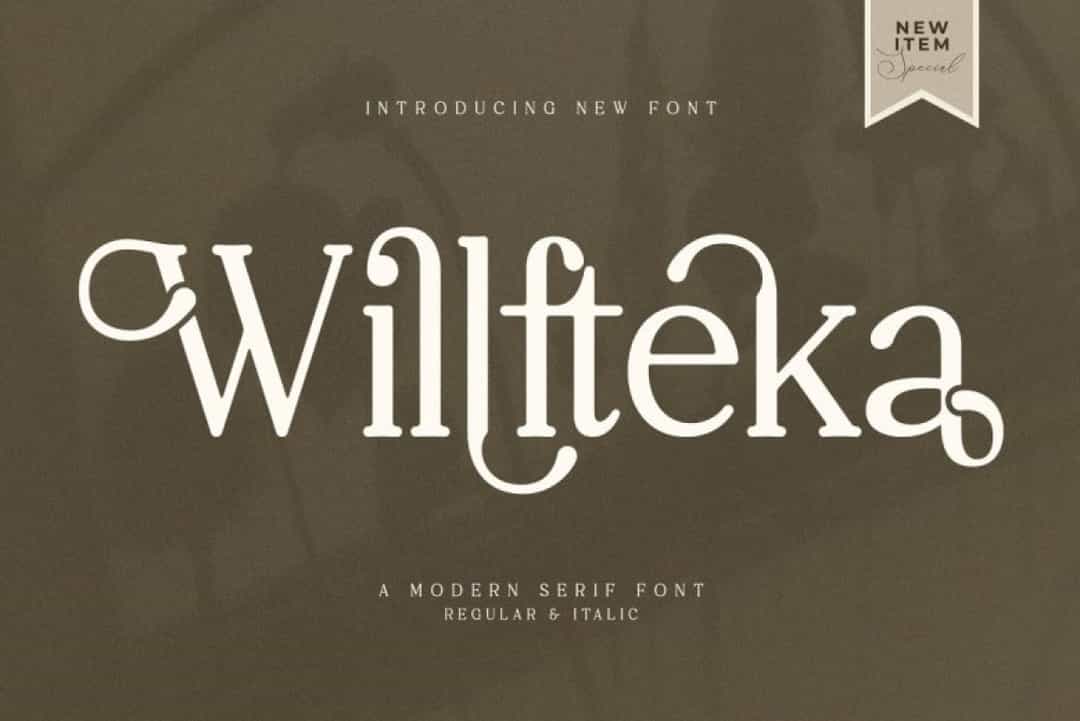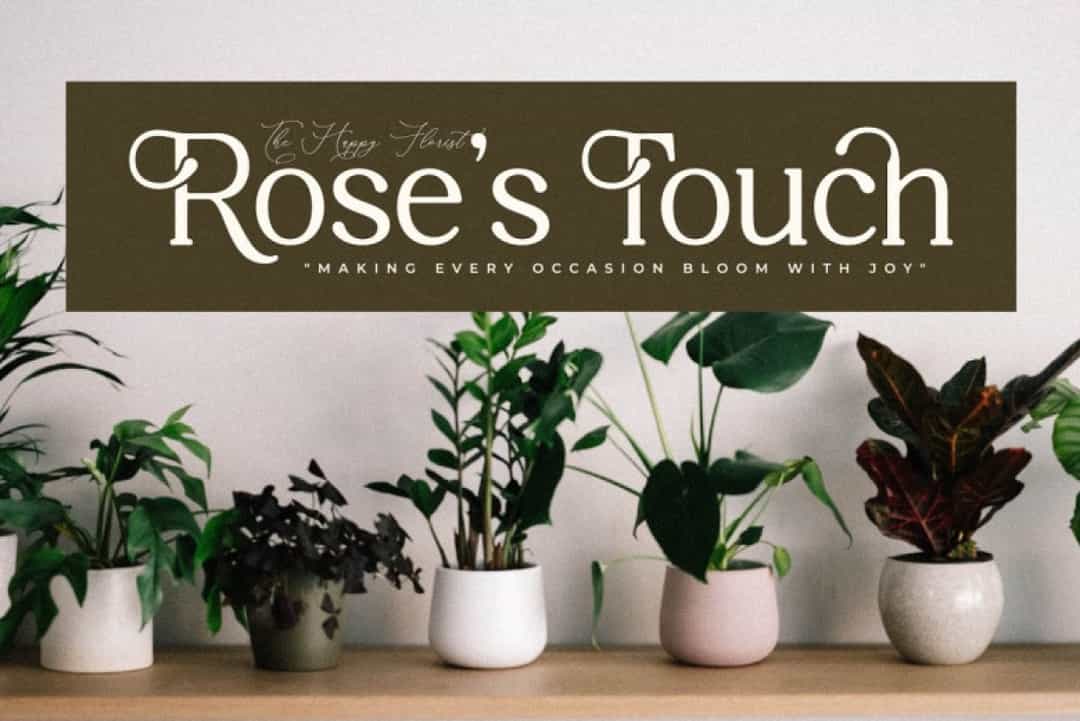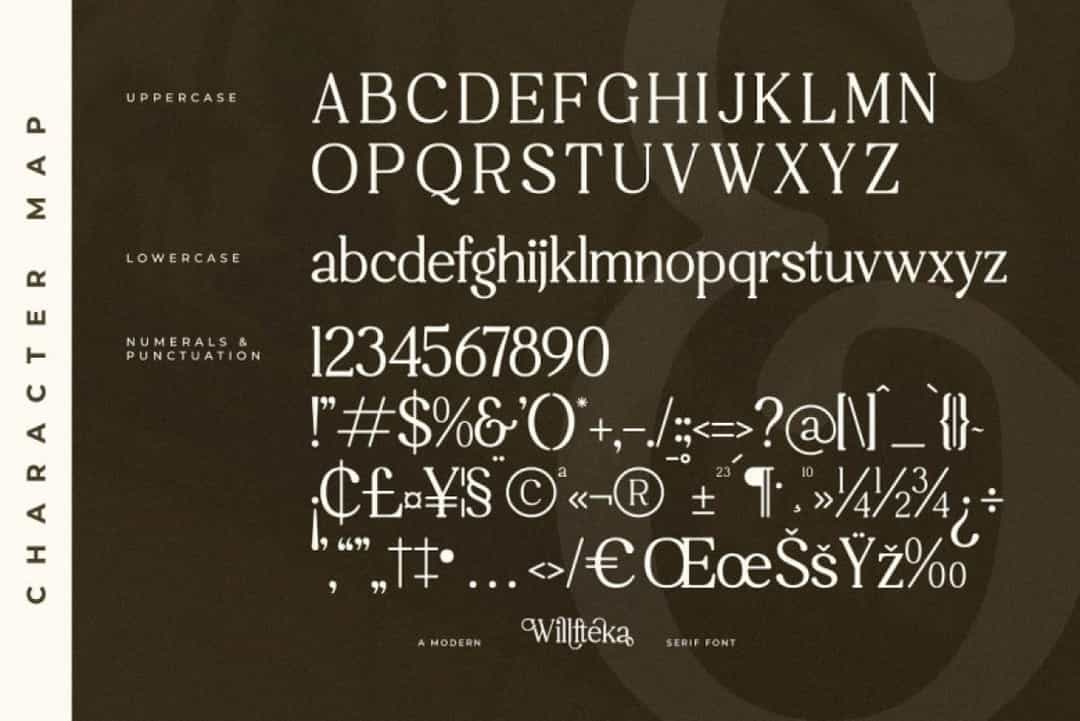
Willfteka can be defined as an elegant and modern serif typeface, featuring its distinguished style and contemporary appeal. Perfect for creating luxurious logos, movie or book title design, fashion clothing line design, magazine letters and quotes and much more,